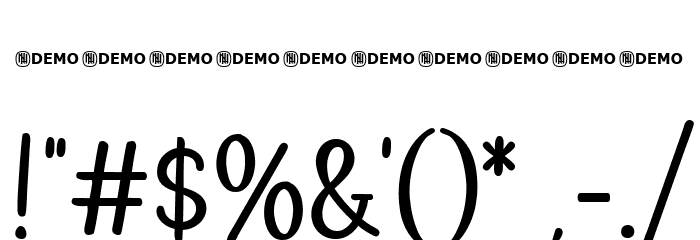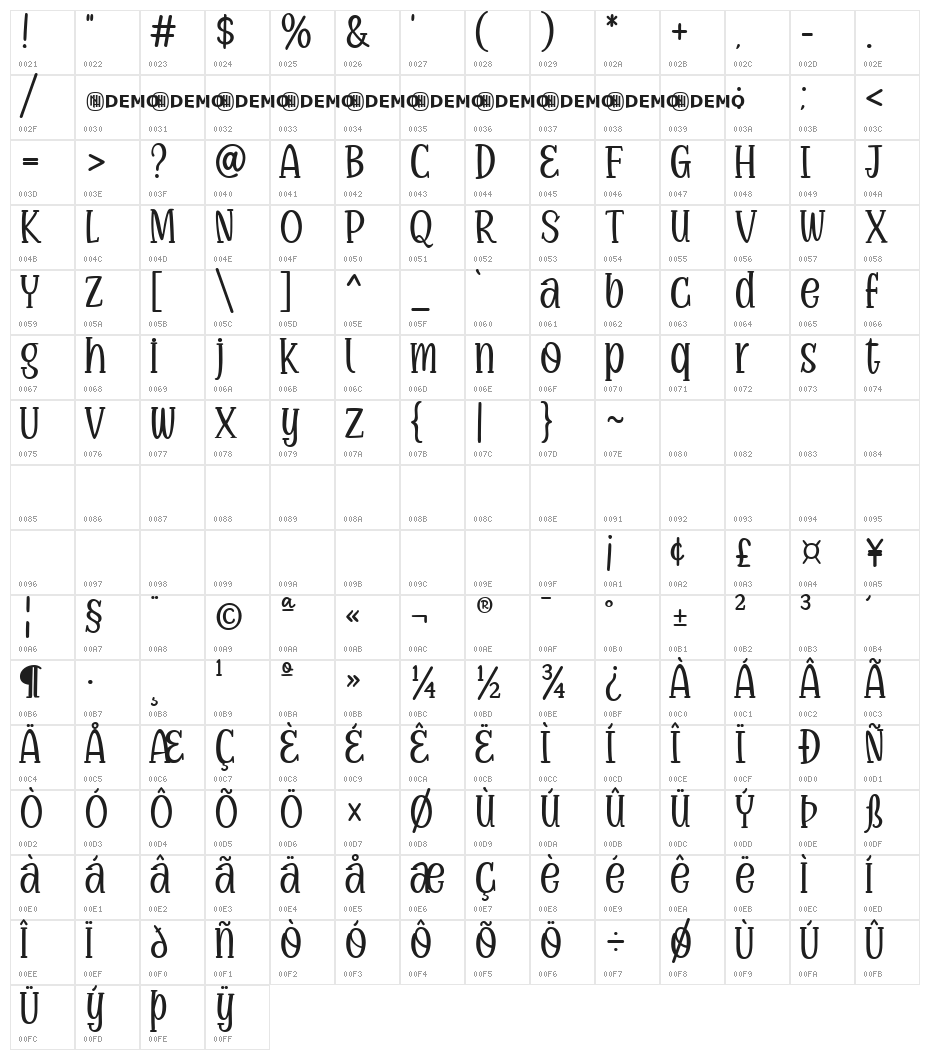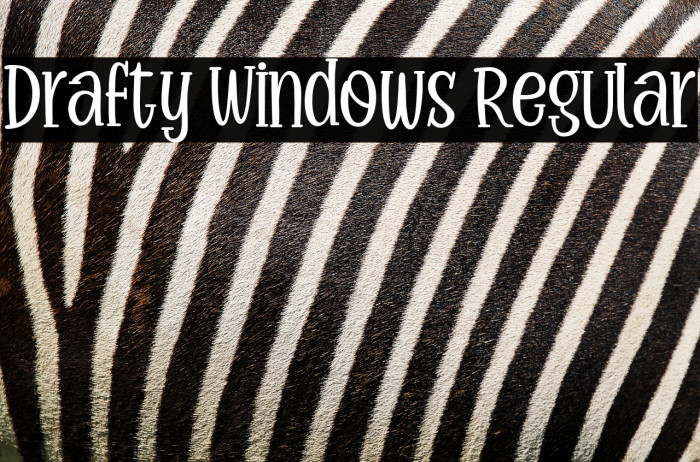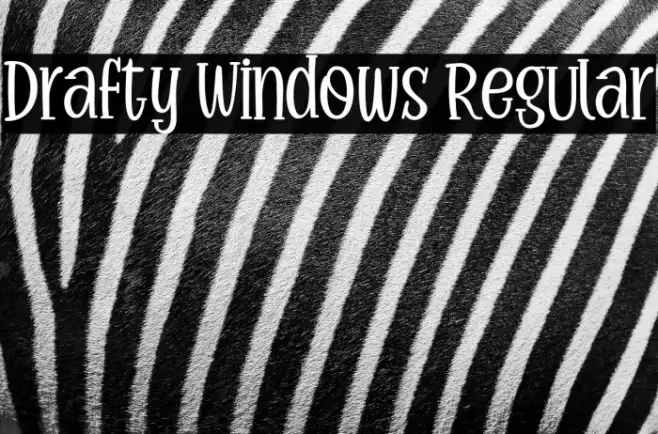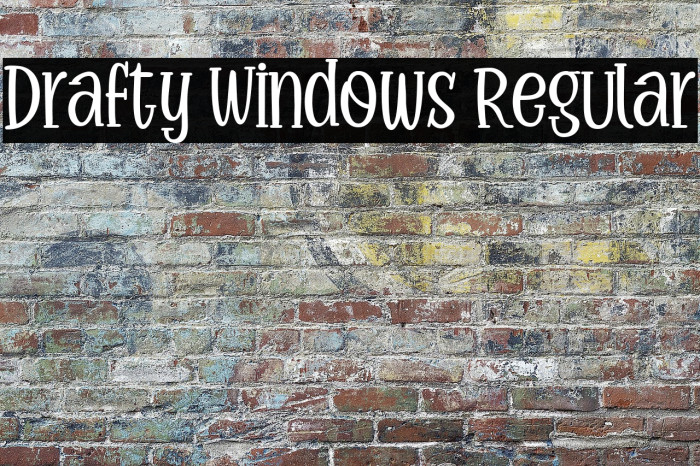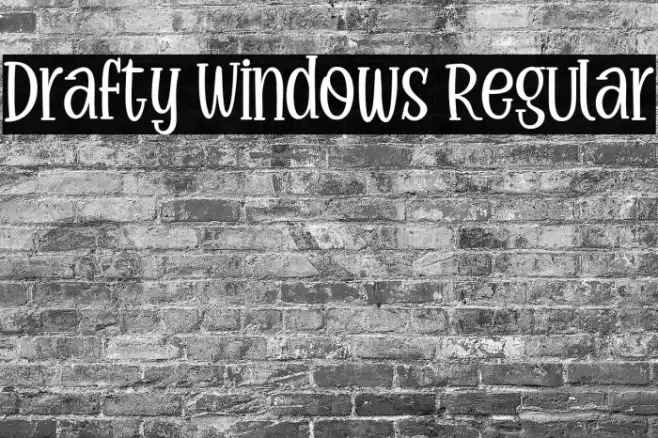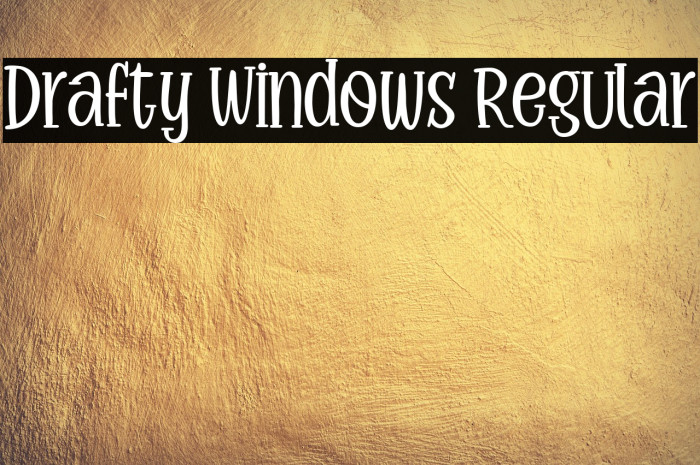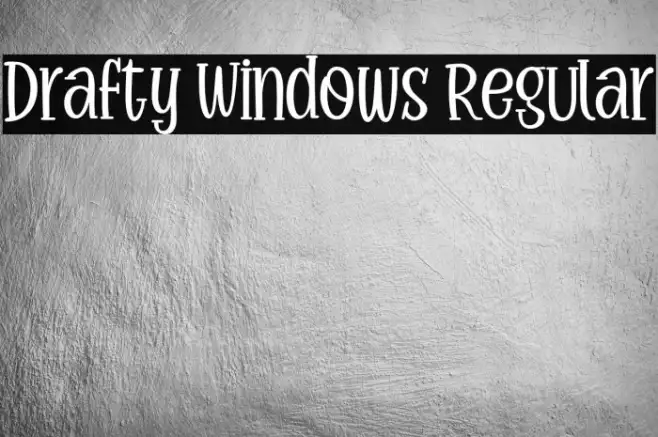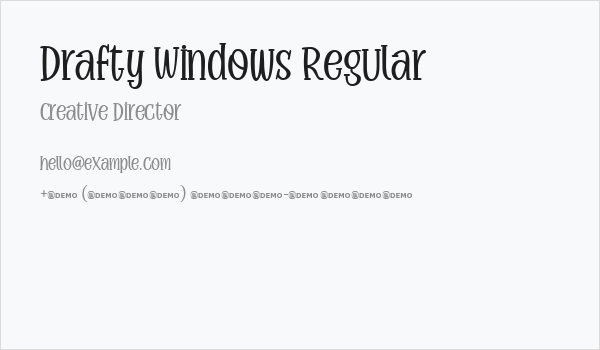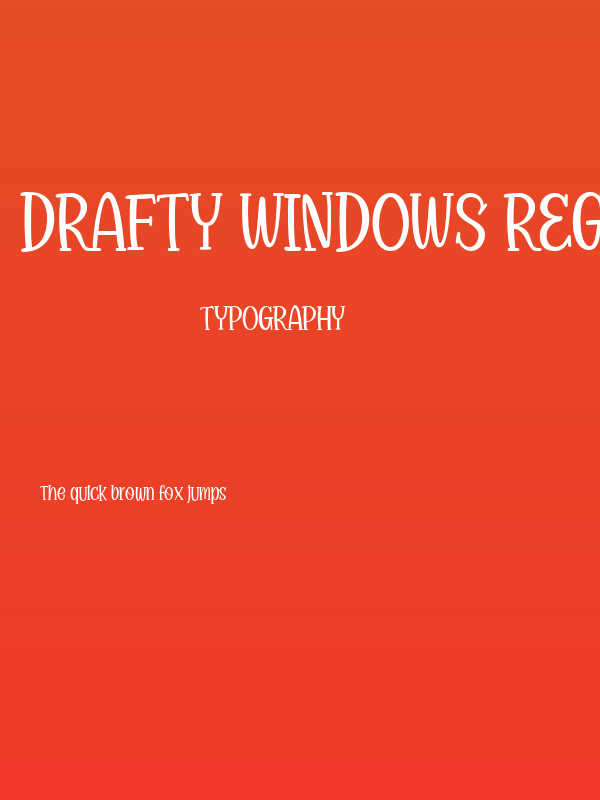
Drafty Windows Regular Font
Drafty Windows Regular Description
This font features a playful and whimsical design, characterized by its tall, narrow letters with a slight slant, giving it a hand-drawn appearance. The strokes are consistent in width, providing a uniform look across all characters. The uppercase letters are bold and prominent, while the lowercase letters maintain a similar style with slightly more curves and loops. The font includes a full set of numerals and a variety of special characters, each maintaining the same playful aesthetic. The overall style is casual and friendly, making it suitable for projects that require a touch of personality and creativity.
| Proposed Projects | Ideal for children's books, greeting cards, playful branding, and creative posters. |